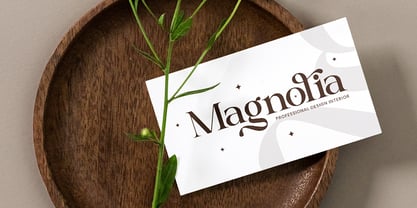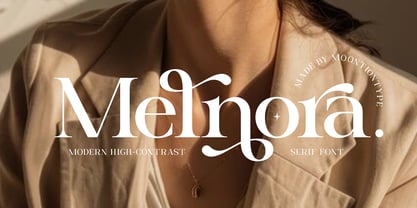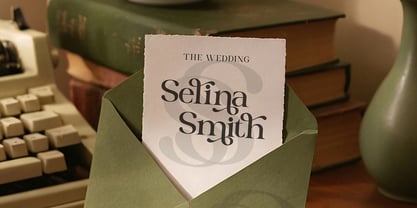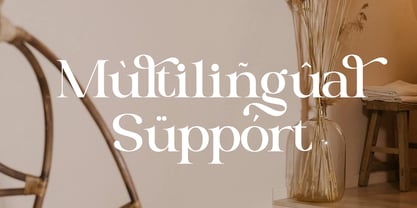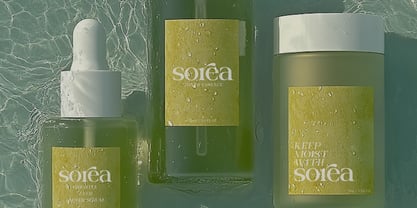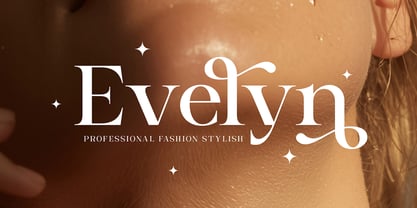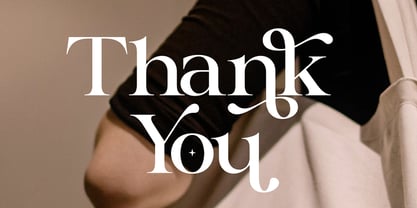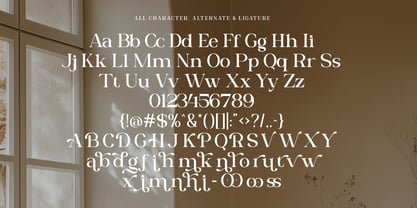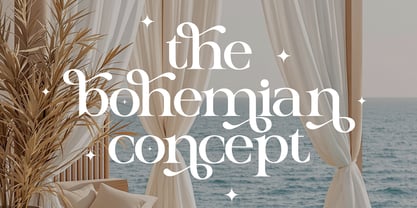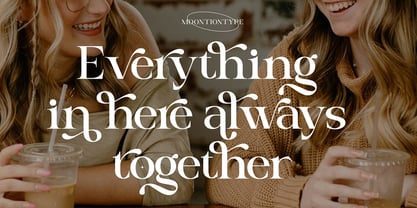
Melnora
Bring elegance and sophistication to your creative projects with Melnora, a modern high-contrast serif font designed with graceful curves, luxurious details, and stylish editorial aesthetics. Perfect for fashion branding, beauty products, wedding invitations, logo design, magazines, social media templates, and premium packaging.
Melnora combines timeless serif elegance with a contemporary feminine touch, making it ideal for creators who want their designs to feel classy, refined, and visually striking.
Perfect For
• Luxury Branding
• Fashion Logos
• Beauty & Skincare Packaging
• Wedding Invitations
• Editorial & Magazine Design
• Social Media Templates
• Boutique Branding
• Photography Watermarks
• Feminine Business Branding
• Canva & Cricut Projects
Why You'll Love Melnora
Melnora was carefully crafted to create a luxurious and modern impression while maintaining readability and elegance. The dramatic contrast and flowing letterforms make every word look premium and aesthetic.
Perfect for designers, entrepreneurs, content creators, and small business owners looking for a chic serif font that stands out beautifully in both digital and print projects.